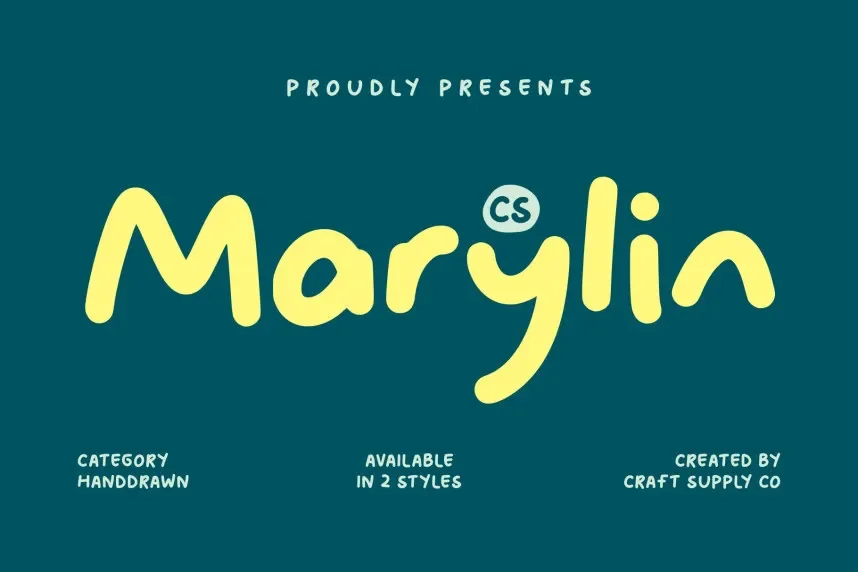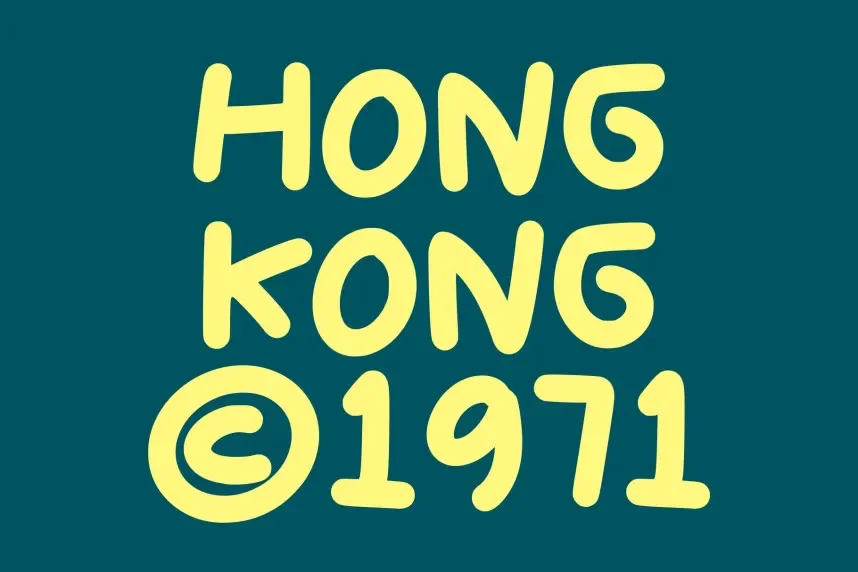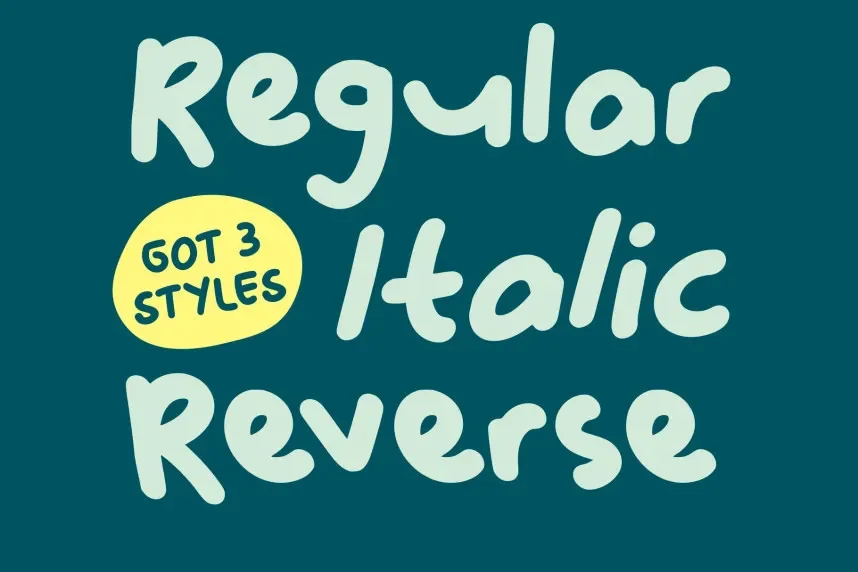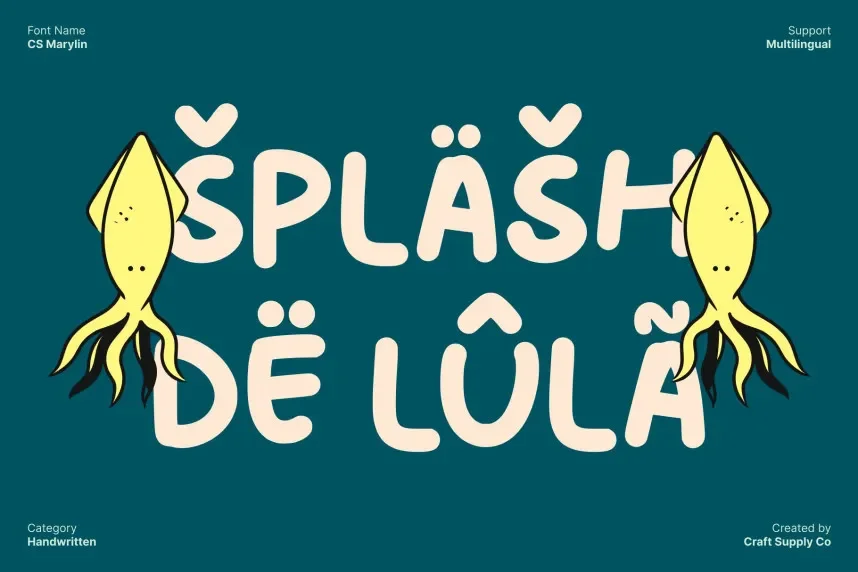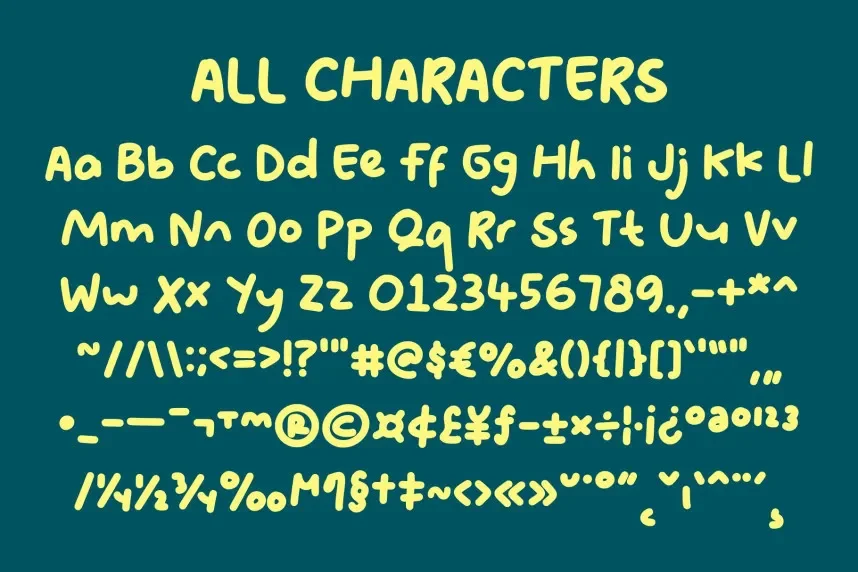
CS Marylin Font helps designers maintain readability when working with decorative serif typography. Many serif display fonts struggle in branding and invitations where clarity and balance matter.
CS Marylin is a serif display font with smooth curves, moderate stroke contrast, and refined terminals. The letterforms feel structured and evenly spaced, supporting readability in headings and short text. Serif details add visual hierarchy without overpowering layouts.